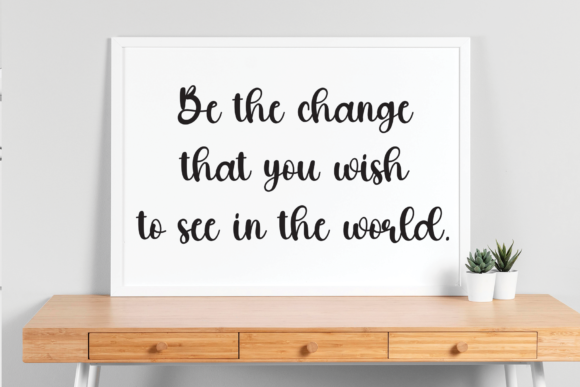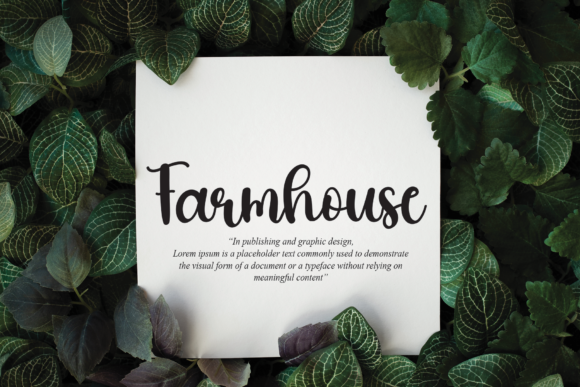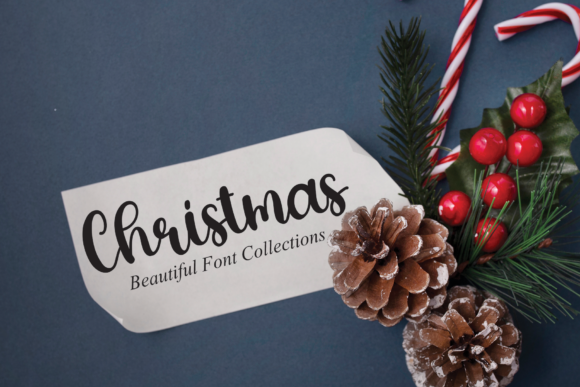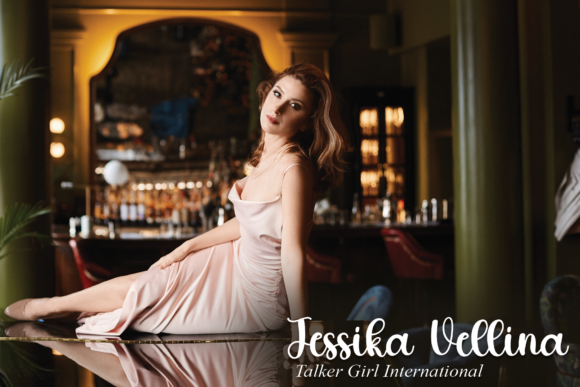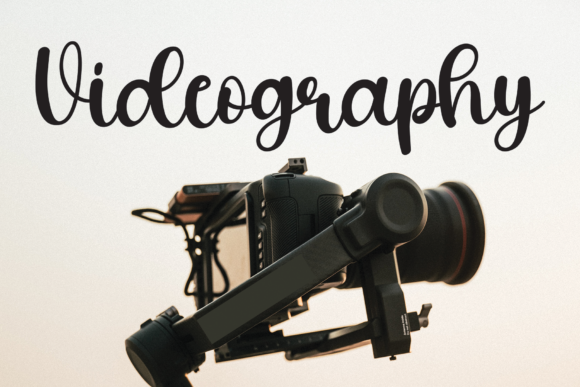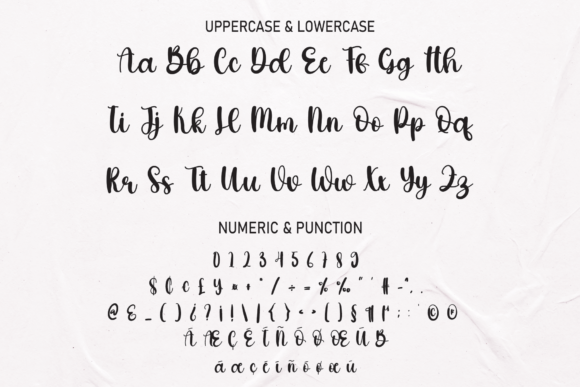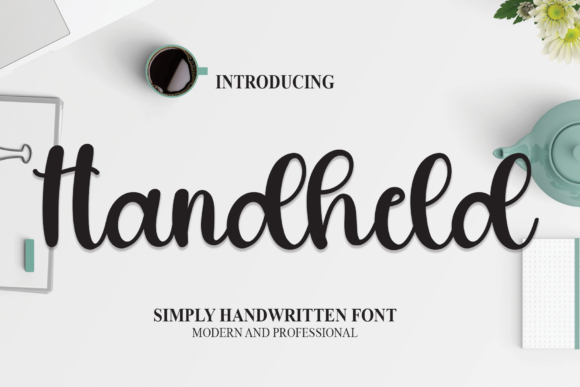
Introducing Handheld Font: The Timeless Handwritten Choice for Designers and Crafters
In the world of typography, a well-crafted font can elevate your design, branding, and overall visual identity. For designers and crafters looking for a unique and beautiful touch, Handheld Font is an excellent choice. This lovely and timeless handwritten font is perfect for creating eye-catching logos, branding, and quotes that stand out from the crowd.
The Unique Charm of Handheld Font
Handheld Font boasts a distinctive charm that sets it apart from other fonts. Every letter has a unique and beautiful touch, which will make your design come alive. The font’s handwritten nature gives it a personal and approachable feel, making it ideal for designs that require a human touch. Whether you’re creating a logo, branding materials, or quotes, Handheld Font is sure to add a touch of elegance and sophistication.
Why Choose Handheld Font?
So, why should designers and crafters choose Handheld Font for their projects? Here are a few compelling reasons:
- Timeless appeal: Handheld Font has a timeless quality that ensures your design will remain stylish and relevant for years to come.
- Unique character: Each letter has a distinct character that adds a personal touch to your design.
- Elegant and sophisticated: Handheld Font exudes elegance and sophistication, making it perfect for high-end designs.
- Versatile: This font is versatile and can be used for a wide range of projects, from logos and branding to quotes and more.
Handheld Font is an excellent choice for designers and crafters who want to add a personal touch to their work. Whether you’re creating:
- Logos: Use Handheld Font to create a unique and memorable logo that reflects your brand’s personality.
- Branding materials: From business cards to letterheads, Handheld Font is perfect for creating cohesive branding materials.
- Quotes and posters: Add a touch of elegance to your quotes and posters with Handheld Font.
- Stationery and invitations: Use Handheld Font to create beautiful stationery and invitations that showcase your personal style.
Tips for Using Handheld Font
To get the most out of Handheld Font, here are a few tips:
- Experiment with sizes: Handheld Font looks great in various sizes, so don’t be afraid to experiment to find the perfect fit for your design.
- Pair with complementary fonts: Pair Handheld Font with complementary fonts to create a unique and visually appealing combination.
- Use it sparingly: Use Handheld Font sparingly to add emphasis and create visual interest in your design.
In conclusion, Handheld Font is a timeless and lovely handwritten font that’s perfect for designers and crafters looking to add a unique touch to their work. With its elegant and sophisticated feel, versatility, and unique character, Handheld Font is an excellent choice for creating eye-catching logos, branding, and quotes. So why not give it a try and see how it can elevate your designs?
Whether you’re a seasoned designer or a crafter looking for a beautiful font to enhance your work, Handheld Font is sure to impress. Its timeless appeal and unique charm make it an excellent addition to any design project. So go ahead, explore the possibilities of Handheld Font, and take your designs to the next level!